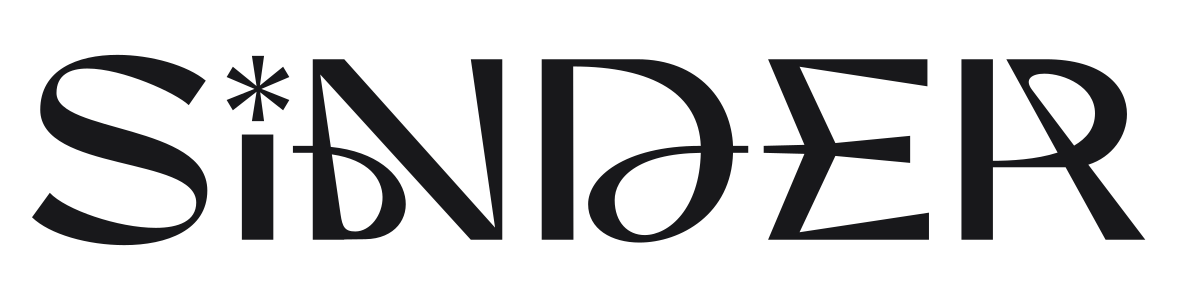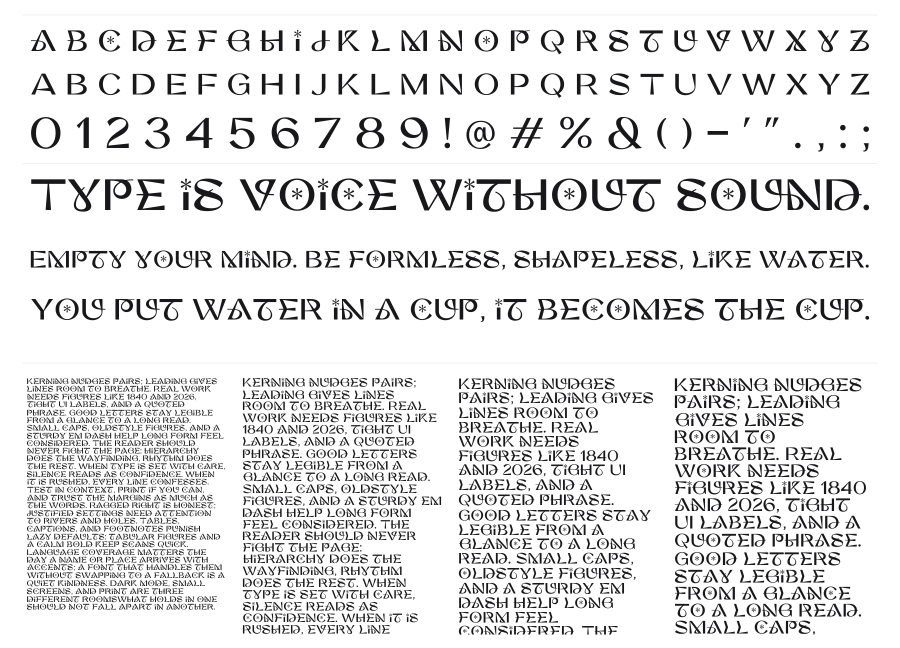
Sinder
Sinder is a decorative display face drawing from uncial calligraphy and medieval manuscript traditions, filtered through a distinctly contemporary dark-fantasy lens. Characters feature sharp tapered serifs, enclosed circular counters, and ornamental star details that make each letter feel individually crafted. It commands attention at large sizes and suits editorial headlines, album art, game titles, and brand identities with a mythological or arcane theme.